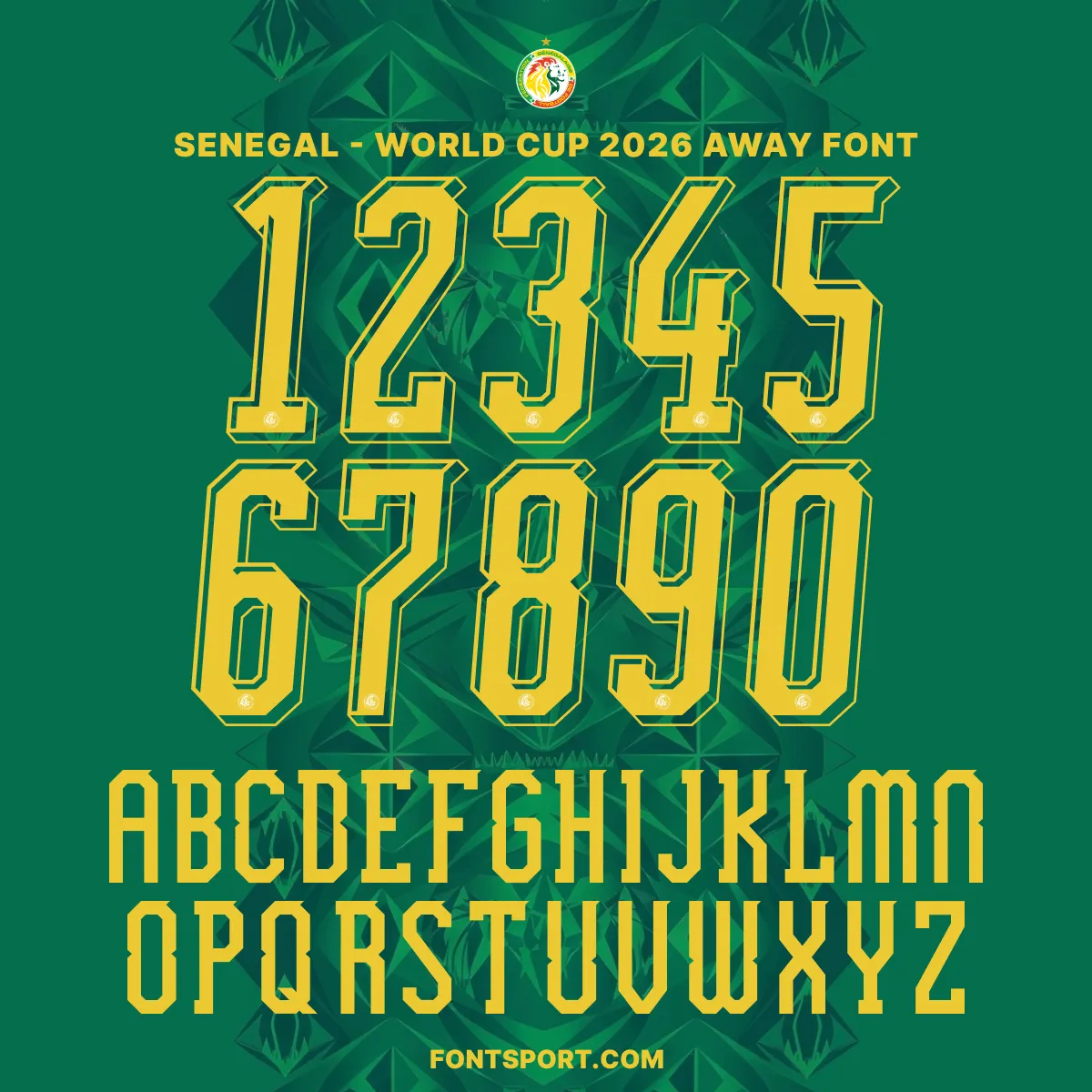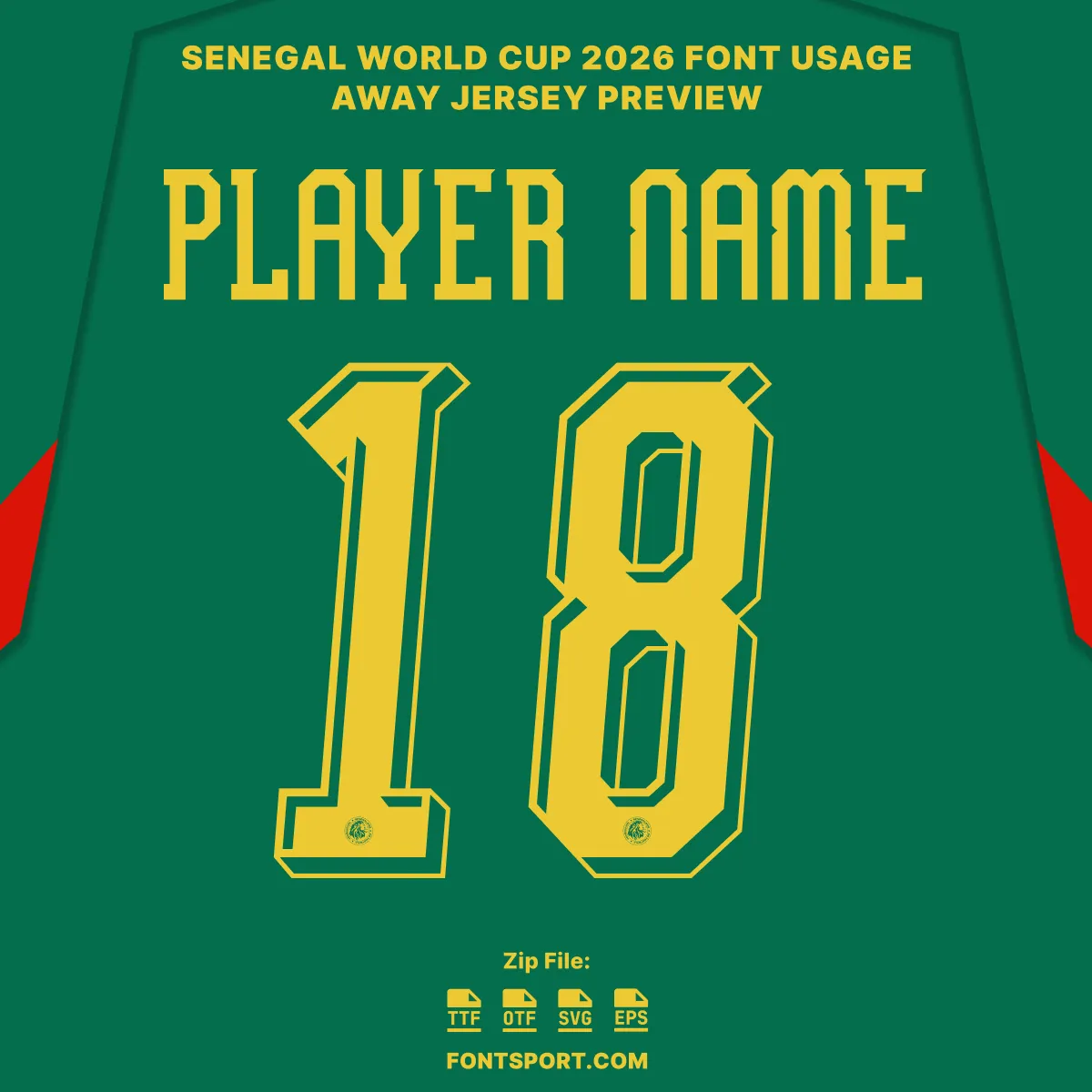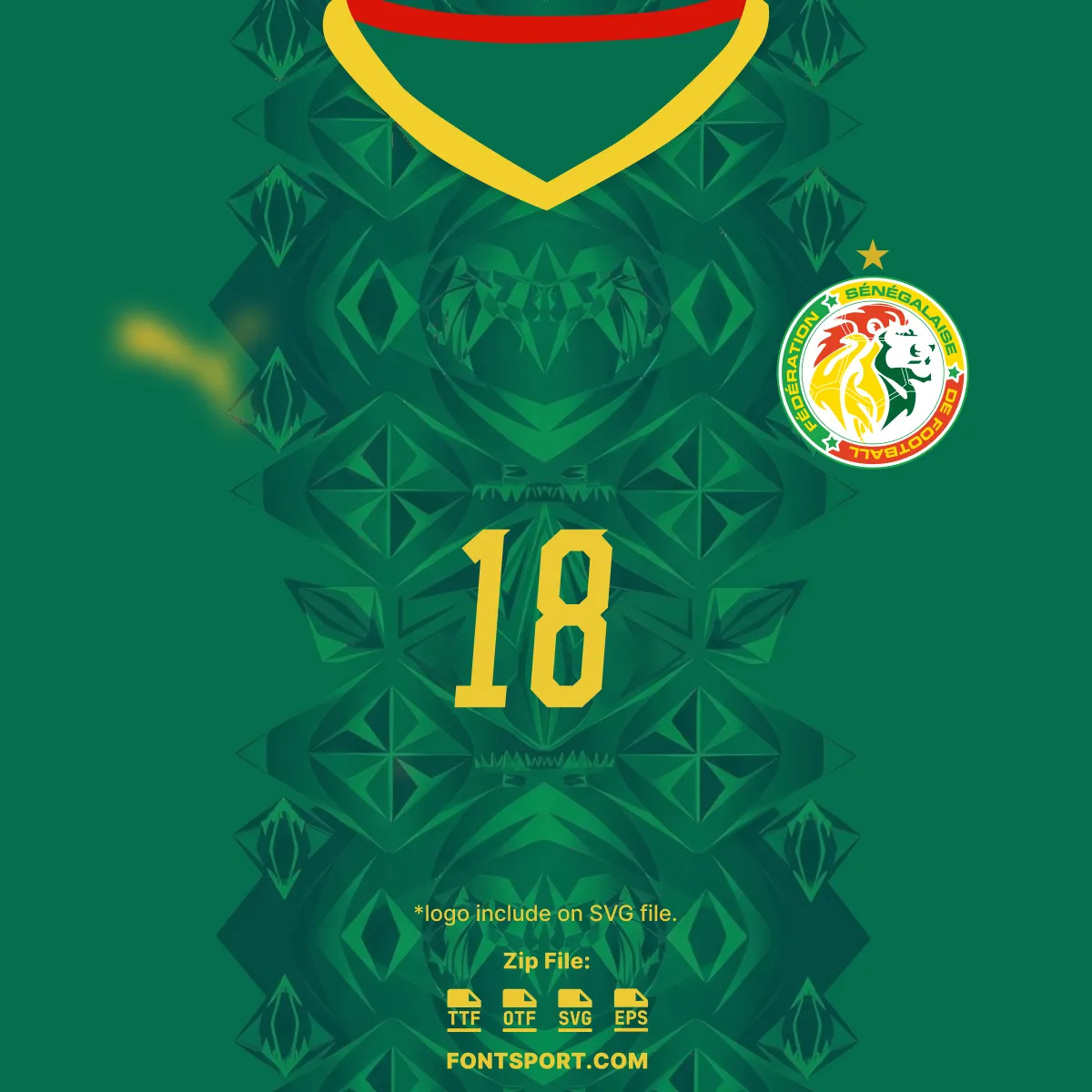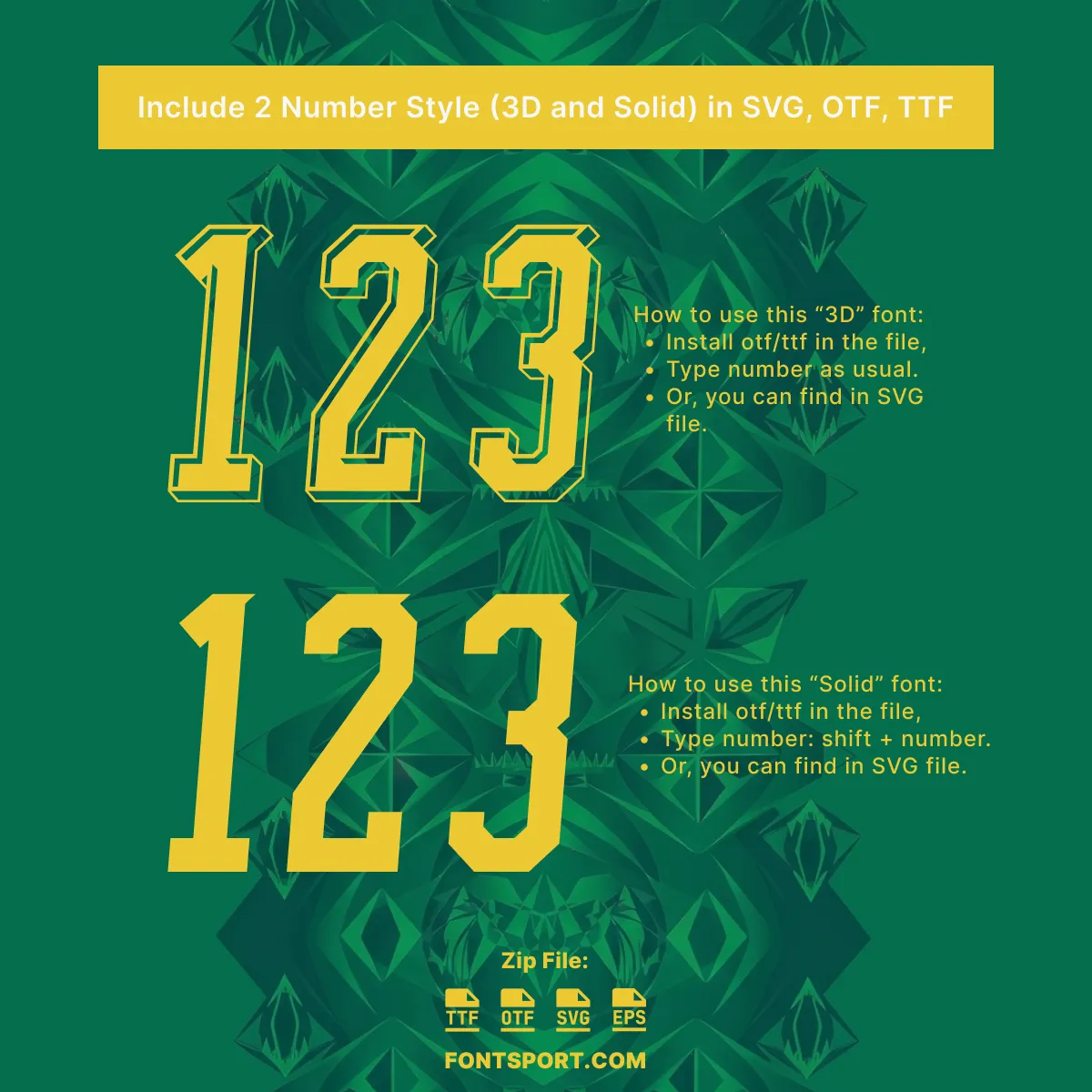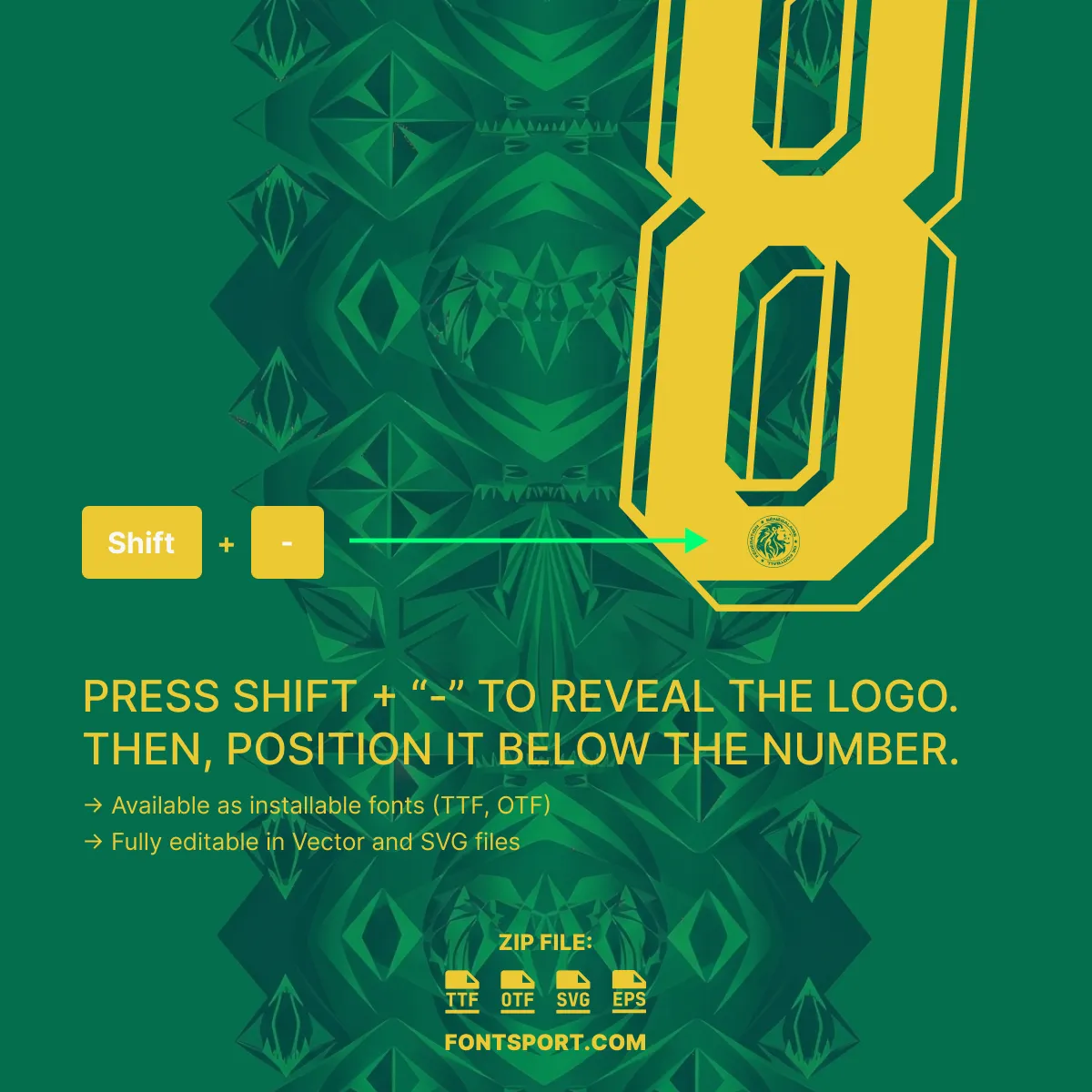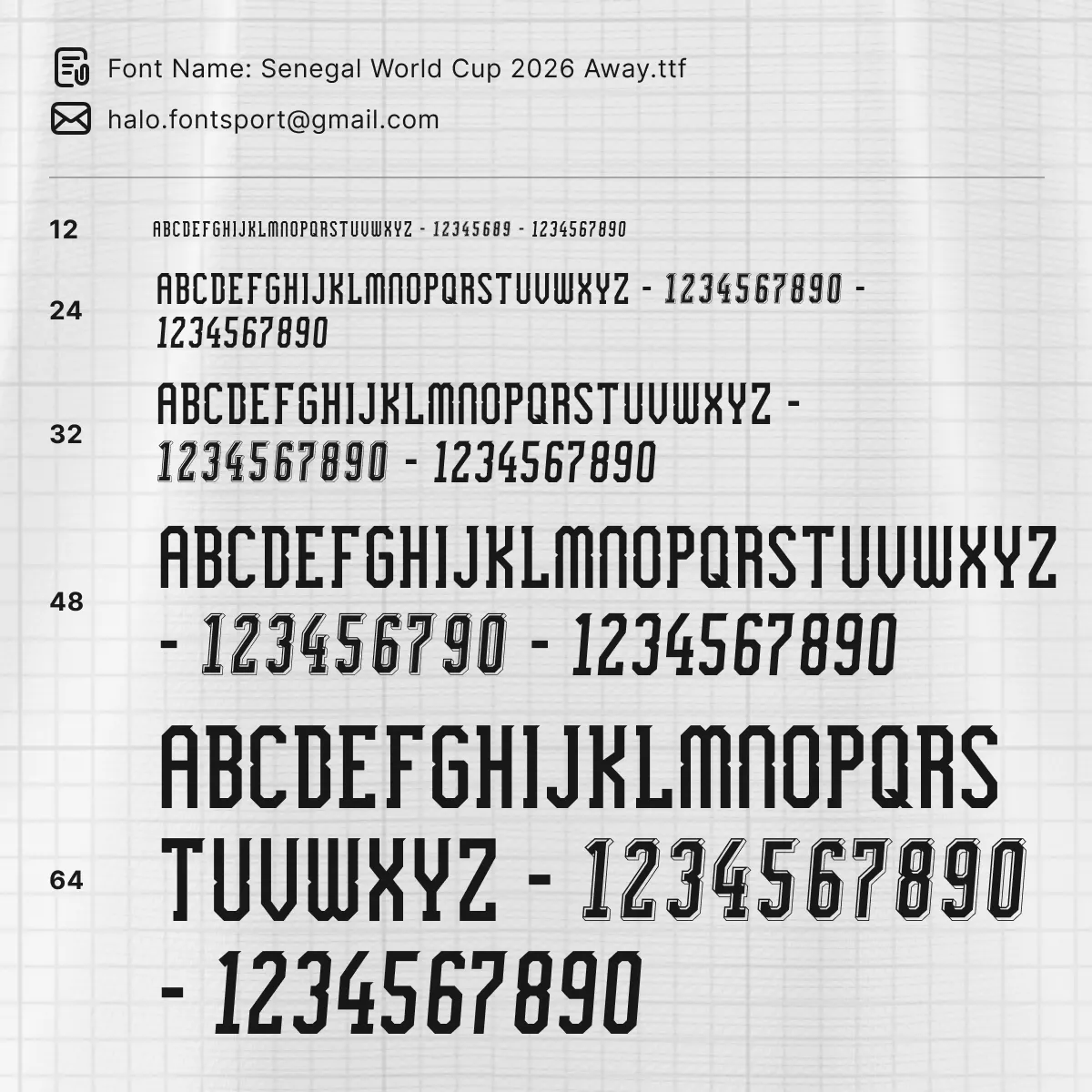
Senegal Away Font Kit 2026 – Authentic World Cup Typeface
The Senegal 2026 away font kit captures the lettering style paired with Senegal’s green World Cup away look. Furthermore, the character set is shaped to match the tall, angular shirt lettering and layered number presentation shown across the team’s 2026 visual identity.
This font kit is made for designers who want a strong football finish. As a result, it works beautifully on jersey mockups, supporter artwork, matchday posters, and custom apparel concepts.
Key Visual Identity of the Font
Typography Style
This typeface has a narrow, upright stance with sharp corners and a clean vertical rhythm. In particular, the letters feel compact and athletic, which helps them stay readable on shirts, thumbnails, and large-format graphics.
Number Design
The numbers use a bold block structure with a layered outline effect. Moreover, the away set carries a high-contrast look in yellow over green, giving the kit a bright and unmistakable matchday presence.
- ✅ Full uppercase A–Z & numbers 0–9 in Senegal’s 2026 away style
- ✅ Crest/logo glyph option for shirt-accurate number detailing where included
- ✅ Multilingual Latin alphabet with extra accented characters
Why Designers & Fans Choose This Font Kit
- ⚽ Perfect for World Cup jersey mockups with match-accurate lettering
- 🎯 Strong visual impact for posters, banners, and digital match graphics
- 🛍️ Great for Senegal-inspired fan merch and custom shirt concepts
- 📱 Clean enough for Instagram, TikTok, X, and YouTube thumbnails
- 🏆 Includes layered number styling for a premium away-kit finish